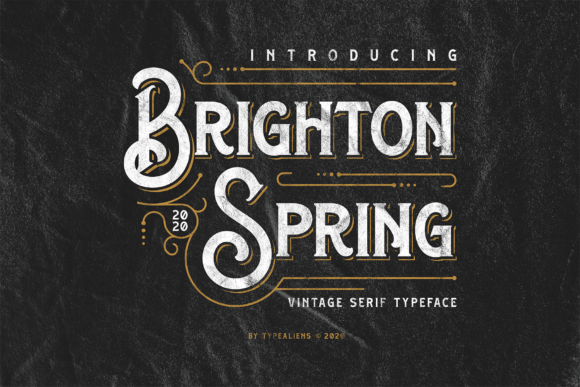
Behold, the Brighton Spring font, a serif masterpiece ready to elevate your creative projects to the zenith of style and elegance. Immerse yourself in its vintage charm, where timeless beauty meets contemporary sophistication. This font is a tapestry of nostalgia, woven with the threads of the past and infused with a modern flair. Its intricate details and flowing lines will leave you breathless, transforming your designs into captivating works of art.
With Brighton Spring, you unlock a world of possibilities. Whether you're crafting logos that exude authority, designing wedding invitations that ooze romance, or creating social media graphics that demand attention, this font will be your trusty companion. Its innate ability to elevate any project is truly remarkable. Unleash your creativity and let the Brighton Spring font guide you to design greatness.
Picture this: a breathtaking branding design that emanates professionalism and class, thanks to the Brighton Spring font. Or, envision a heartfelt wedding invitation adorned with this font's elegant strokes, creating a cherished keepsake for your special day. The possibilities are endless, and the Brighton Spring font is the key to unlocking your creative potential.
Don't settle for ordinary fonts that blend into the background. Embrace the Brighton Spring font and embark on a journey of design excellence. Its versatility and timeless appeal will make it your go-to choice for a plethora of projects. Let your imagination soar as you witness your designs transformed into masterpieces, all thanks to the Brighton Spring font.